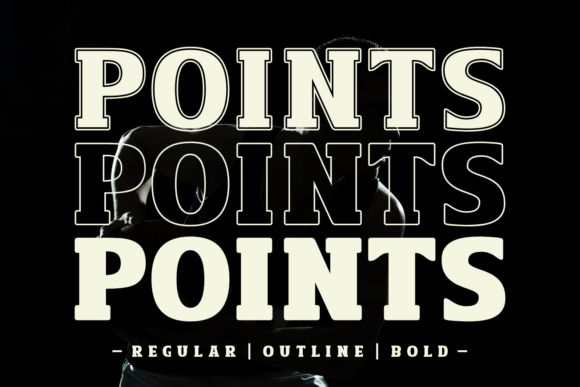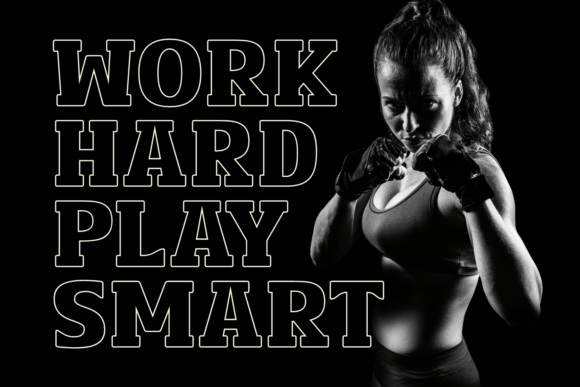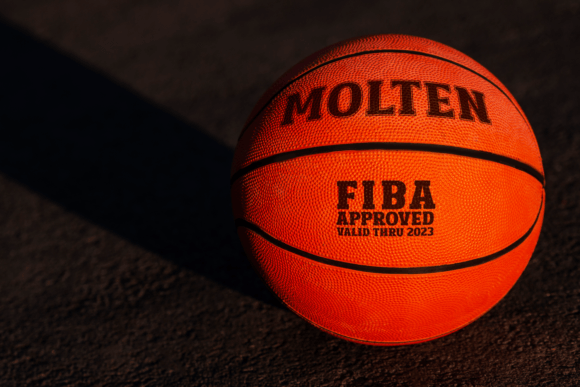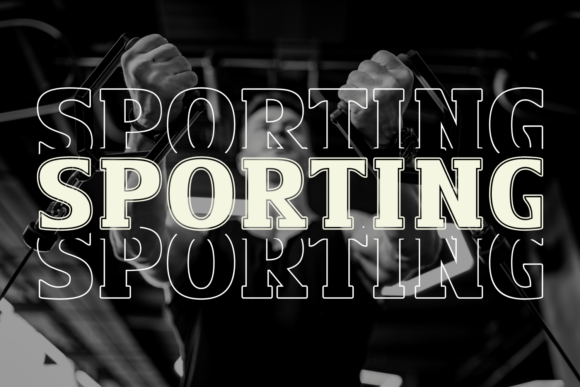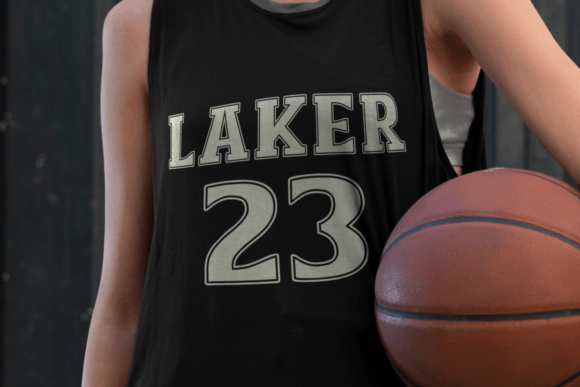
Points Font
About Points Font
Points is a stylish display font that adds a dash of flair to your projects. With its distinctive design, it brings a unique touch to headers, titles, and creative endeavors. The font’s clean lines and modern aesthetic make it versatile for a variety of uses, ensuring your text stands out with a touch of contemporary charm. Opt for Points when you want a font that effortlessly blends simplicity and style.